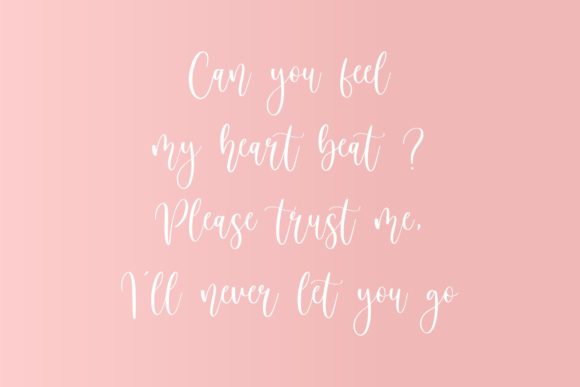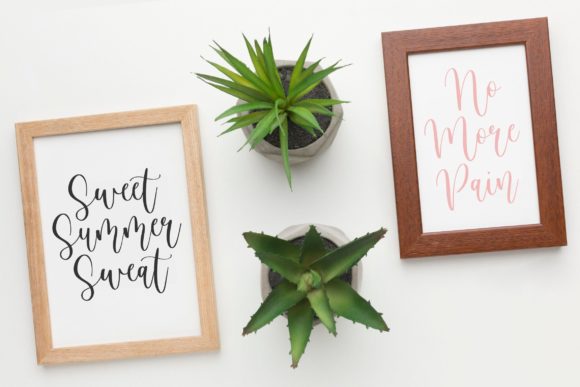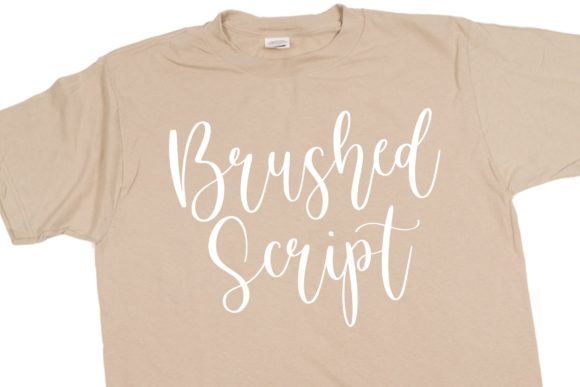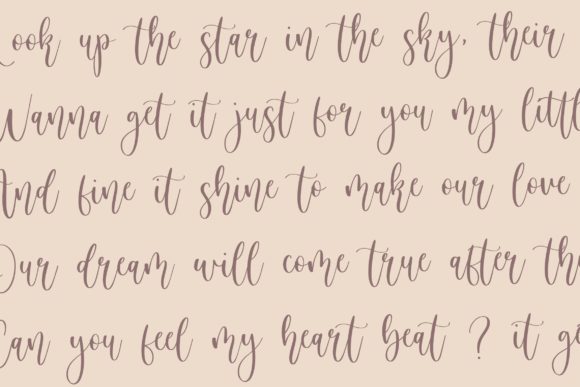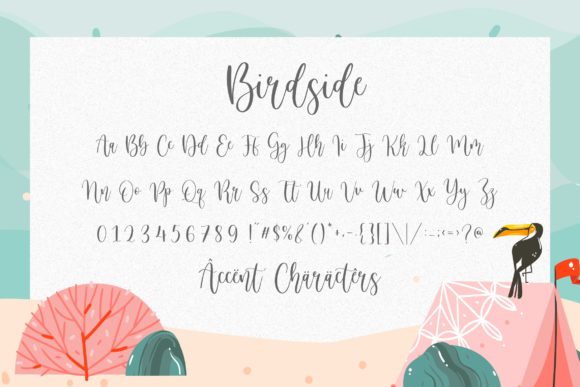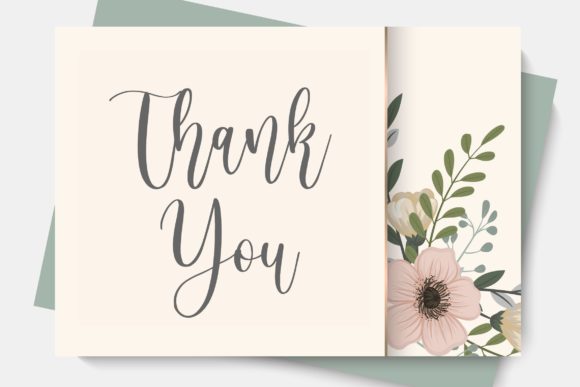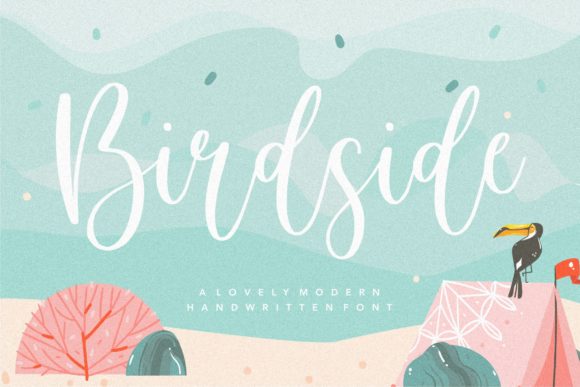
Birdside Font: Elevate Your Designs with Elegance and Timeless Style
Are you on the hunt for a font that exudes elegance, sophistication, and a touch of timeless charm? Look no further than Birdside Font. This stunning, flowing handwritten font is designed to capture the essence of classic style with a modern twist, making it the perfect addition to your design arsenal. In this article, we’ll dive into the world of Birdside Font, exploring its unique features, and how you can harness its beauty to create spectacular designs that leave a lasting impression.
The Essence of Birdside Font
Birdside Font is more than just a typeface; it’s an experience. Described by its elegant touch, this font is the epitome of refined taste and poise. Its incredibly distinct and timeless style sets it apart from the myriad of fonts available today, making it a standout choice for designers and crafters looking to infuse their projects with a sense of luxury and grace.
Key Features of Birdside Font
• Flowing Handwritten Style: Birdside boasts a smooth, flowing script that mimics the elegance of handwritten calligraphy. Its fluid strokes and connections create a sense of movement and harmony, perfect for designs that require a personal touch.
• Elegant Touch: The font’s elegant nature makes it suitable for a wide range of applications, from high-end branding and wedding designs to personal stationery and digital content.
• Timeless Appeal: Unlike trendy fonts that may quickly become outdated, Birdside’s classic style ensures it remains relevant and stylish for years to come. This timeless quality makes it an excellent investment for designers and businesses looking for long-term design solutions.
• Versatility: Birdside Font is incredibly versatile, capable of elevating a variety of design projects. Whether you’re working on a logo, a website, a print project, or social media content, this font can adapt to your creative needs.
Using Birdside Font in Your Projects
The possibilities are endless when it comes to incorporating Birdside Font into your designs. Here are a few ideas to get you started:
• Branding and Logos: Create a memorable brand identity with Birdside Font. Its elegant and distinctive style makes it perfect for logos, business cards, and brand guidelines.
• Wedding and Event Designs: Add a touch of sophistication to your wedding invitations, event programs, and other stationery with Birdside’s beautiful script.
• Digital Content: Elevate your website, blog, or social media content with Birdside Font. Its readability and style make it an excellent choice for headings, titles, and quotes.
• Personal Projects: Whether you’re creating art journals, planners, or personal stationery, Birdside Font can add a touch of elegance and personality to your work.
Why Choose Birdside Font?
In a world where design trends come and go, Birdside Font stands out for its enduring appeal and versatility. By choosing Birdside, you’re not just selecting a font; you’re embracing a design philosophy that values elegance, sophistication, and timelessness. This font is perfect for:
• Designers: Looking for a reliable, high-quality font that can elevate their projects and meet client expectations.
• Crafters: Seeking to add a professional touch to their handmade projects, such as bespoke stationery, wedding crafts, or art pieces.
• Businesses: Aiming to create a strong brand identity that exudes luxury, elegance, and professionalism.
Font Name Birdside Font
Author Balpirick
Birdside Font is a beautiful, elegant, and timeless typeface that can transform your designs and set you apart from the crowd. Its flowing handwritten style, distinct character, and versatility make it an invaluable asset for designers, crafters, and businesses looking to make a lasting impression. Whether you’re working on a personal project or a professional assignment, Birdside Font is sure to inspire and elevate your creative endeavors.
So why wait? Fall in love with Birdside Font’s incredibly distinct and timeless style, and use it to create spectacular designs that speak to your unique vision and aesthetic. With Birdside, you’re not just choosing a font; you’re choosing a design partner that will help you achieve elegance and sophistication in every project.